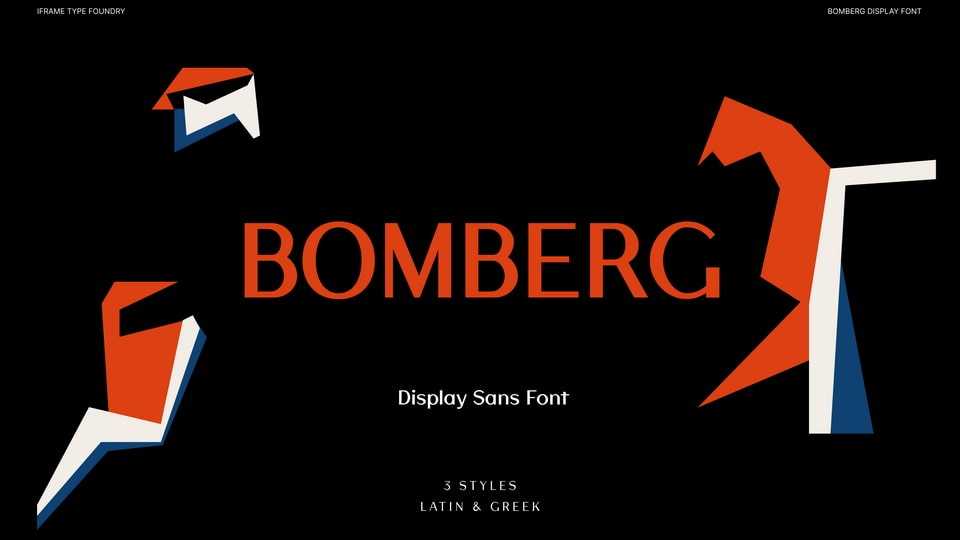
Bomberg Sans Font › Fontesk – Download Grátis
Download Bomberg Sans font, a sans serif typeface inspired by the legendary David Bomberg’s iconic painting, “The Mud Bath.” Just as Bomberg’s brush strokes conveyed raw emotion and creativity, the font captures that very essence in each meticulously crafted letterform.
Designer: iframe design studio